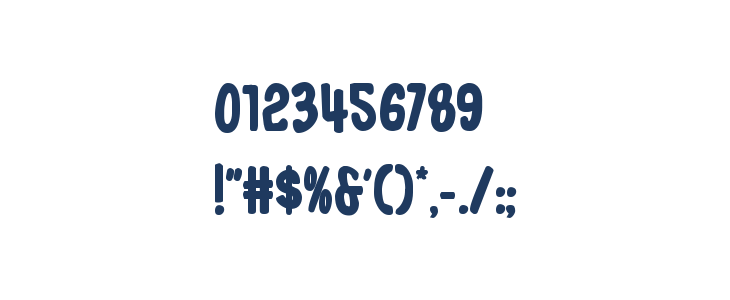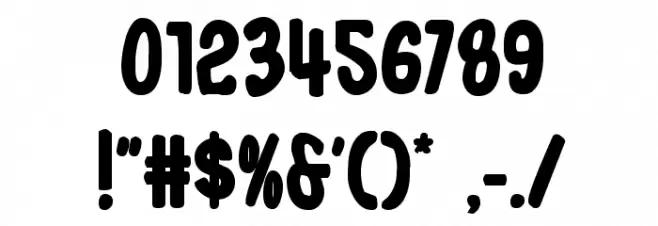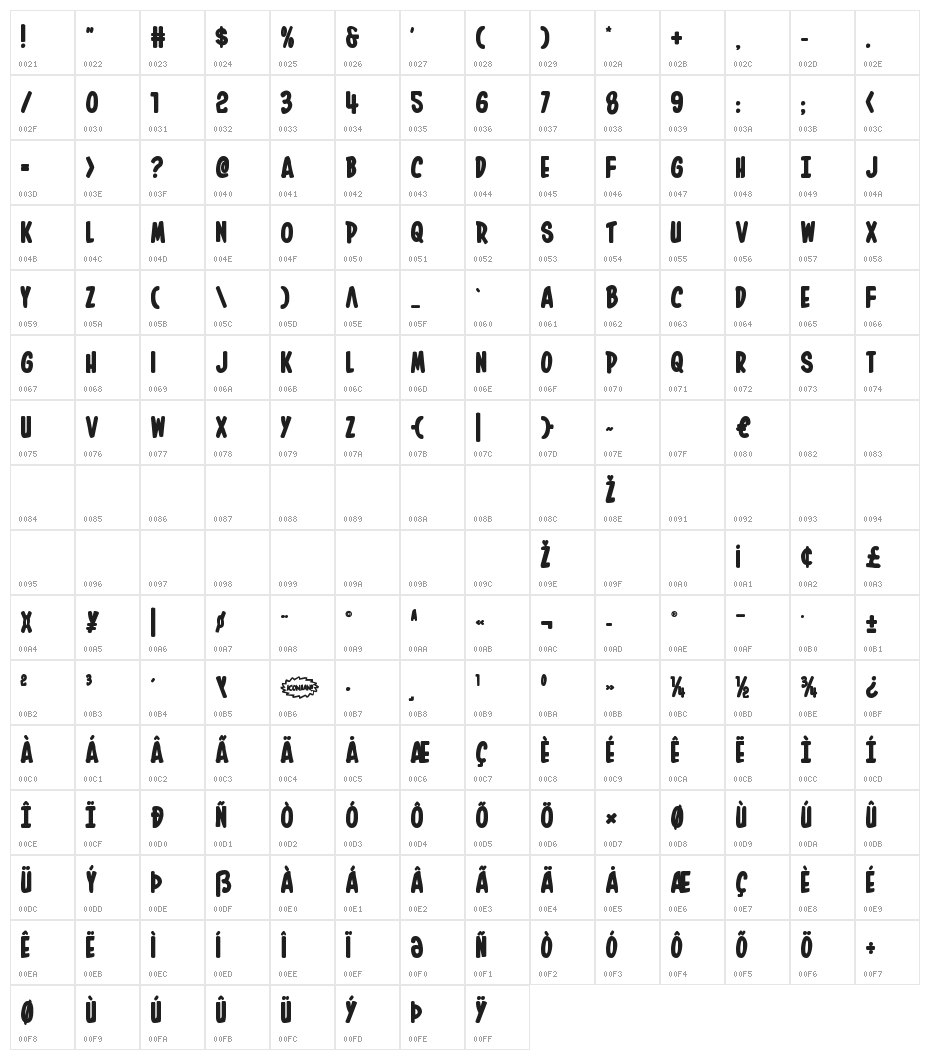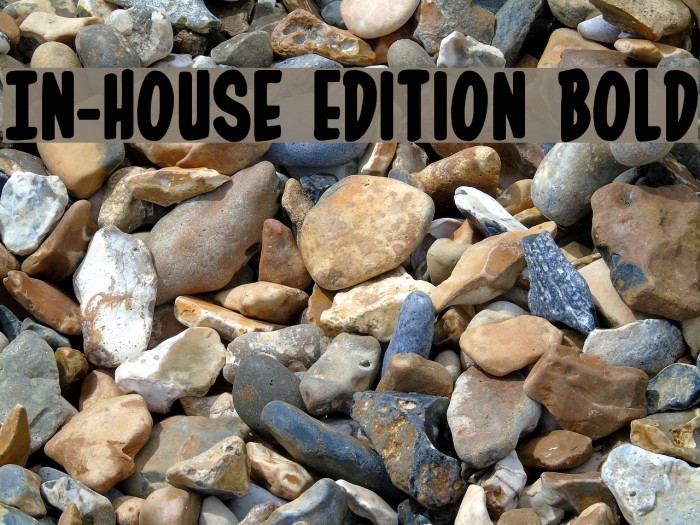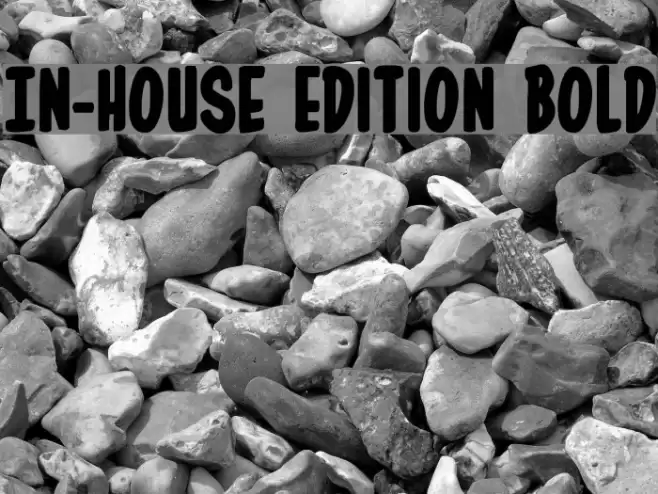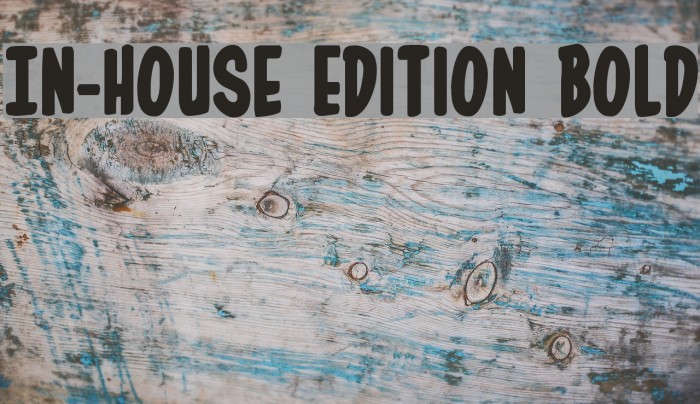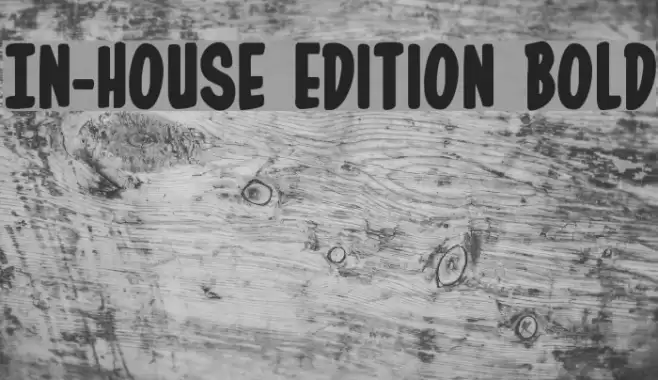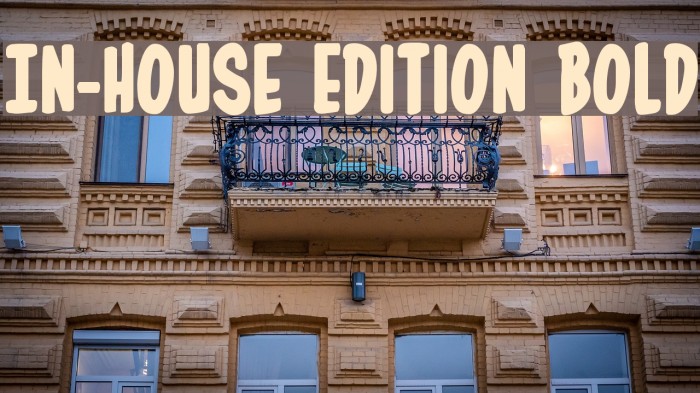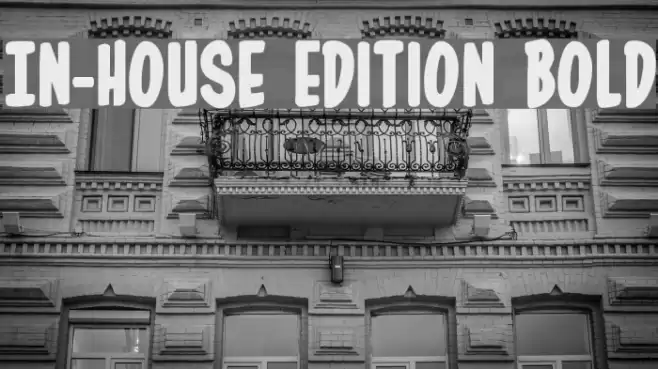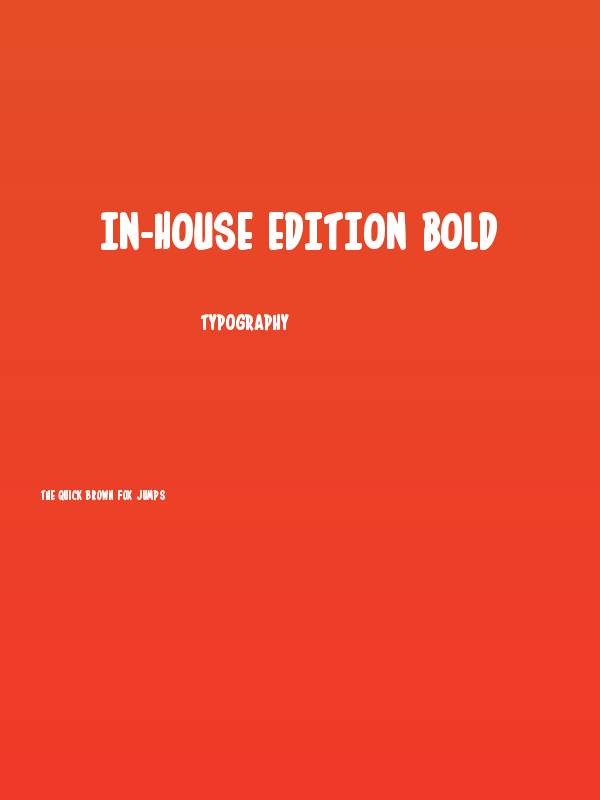
In-House Edition Bold Font
This font features a bold and playful design with rounded edges and a slightly irregular shape, giving it a hand-drawn appearance. The characters are thick and robust, providing a strong visual impact. The uppercase and lowercase letters maintain a consistent style, while the numerals and special characters complement the overall design. The font's playful nature makes it suitable for projects that require a fun and engaging look.
| Overall Style | Playful, Hand-drawn |
| Proposed Projects | Ideal for children's books, playful branding, posters, and social media graphics. |